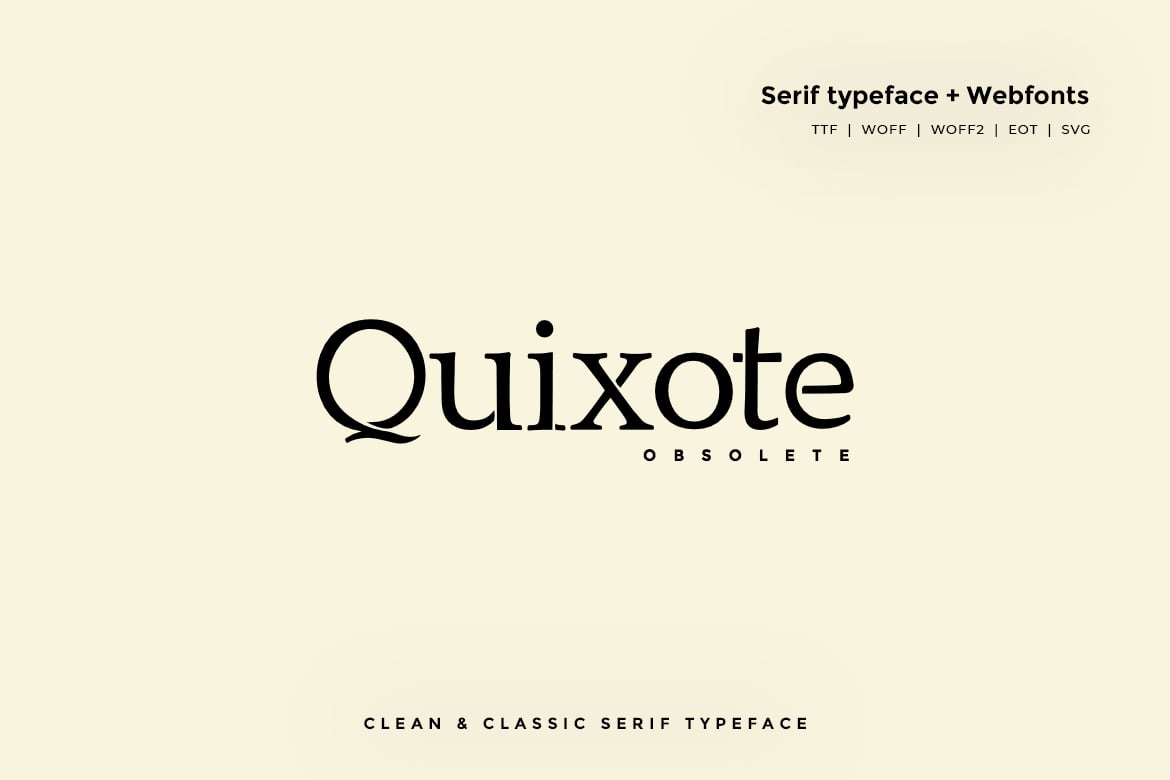
Quixote Obsolete - Classic Typeface + WebFonts
Quixote Obsolete - Classic Typeface + WebFonts is perfect for literary heritage organizations, classical publishing houses, vintage academic institutions, antiquarian book dealers, historical document restoration, and traditional scholarly publications. Its distinguished character makes it ideal for medieval studies programs, classical literature societies, vintage manuscript reproduction, historical fiction publishers, antiquarian libraries, and any project requiring timeless authenticity with classical literary heritage and scholarly antiquity appeal.
This font is exciting because it embodies the noble idealism and timeless literary tradition that defines classical literature while delivering contemporary web functionality for organizations celebrating literary heritage, scholarly tradition, and the enduring power of great storytelling. The elegantly crafted letterforms evoke the golden age of literature and noble quests, creating typography that honors literary giants while providing modern digital reliability across all platforms.
Whether you're developing identity systems for literary institutions, creating materials for classical education programs, or designing digital platforms for scholarly publications, Quixote Obsolete - Classic Typeface + WebFonts Free Download delivers the literary authority and classical sophistication that resonates with academic communities and literature enthusiasts worldwide. Its noble presence ensures respected brand recognition across digital platforms and print materials, making it perfect for websites, mobile applications, and literary campaigns that celebrate classical tradition, scholarly excellence, and the enduring power of great literature with contemporary digital standards and authentic classical integrity.